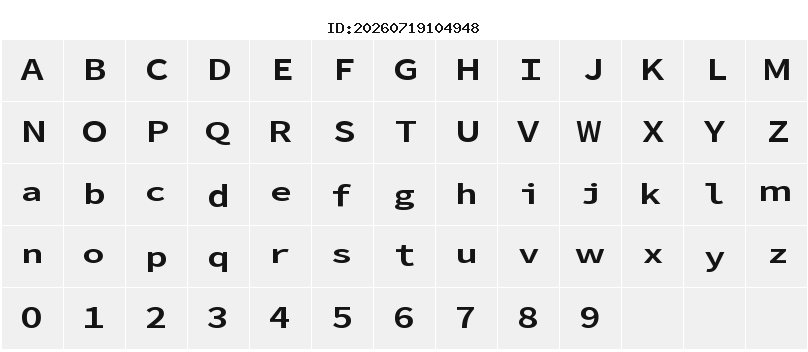
YEFONTShiDaiHeiTi 標準 Preview
• Font Name: YEFONTShiDaiHeiTi 標準
• Full Font Name: 也字工廠時代黑體 標準
• PostScript Name: YEFONTShiDaiHeiTi-Regular
• Manufacturer: 也字工厂
About YEFONTShiDaiHeiTi 標準.TTF
YEFONTShiDaiHeiTi 標準.TTF is a modern, elegant sans-serif font designed for ultimate readability and visual harmony. Perfect for branding, headlines, web design, and print materials.